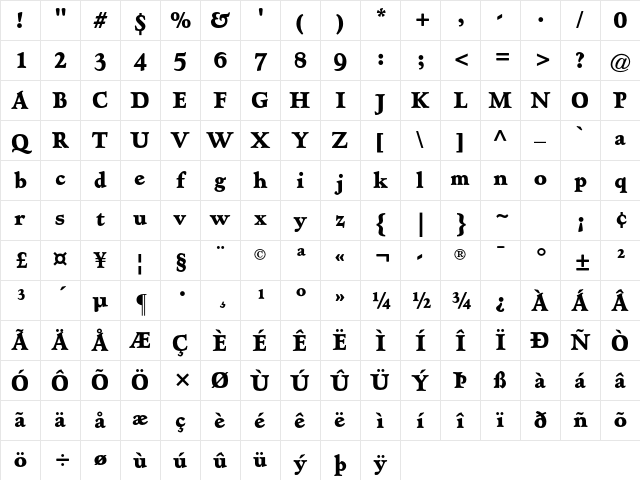
Complete Hadriano Std Extra Bold Condensed glyph index. Displaying only characters natively supported by Hadriano Std Extra Bold Condensed font.
Hadriano Std is a composed and adaptable typeface that performs quietly and consistently across a wide range of design contexts. Its bold stroke weight gives it real presence on the page. Its narrow stance lets it pack a punch even in space-constrained designs.